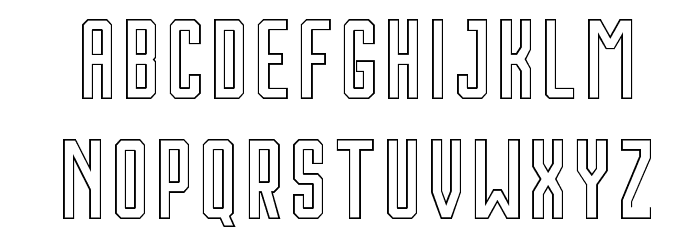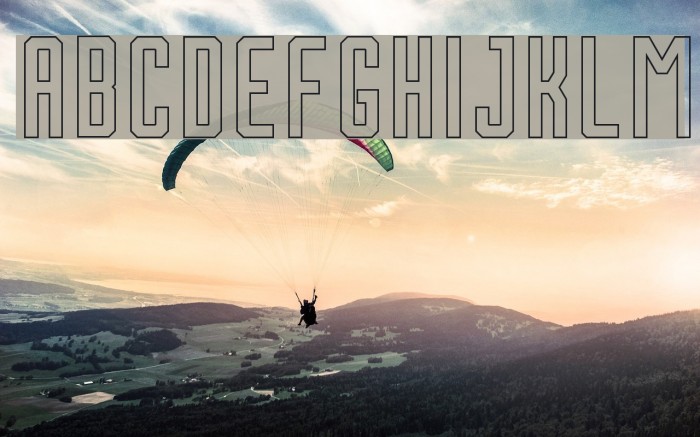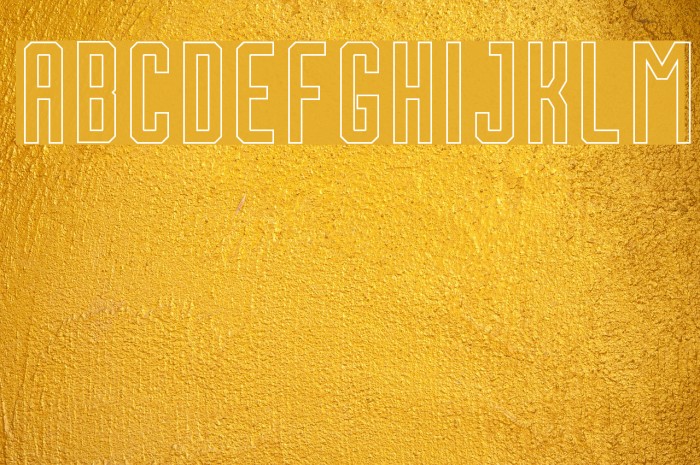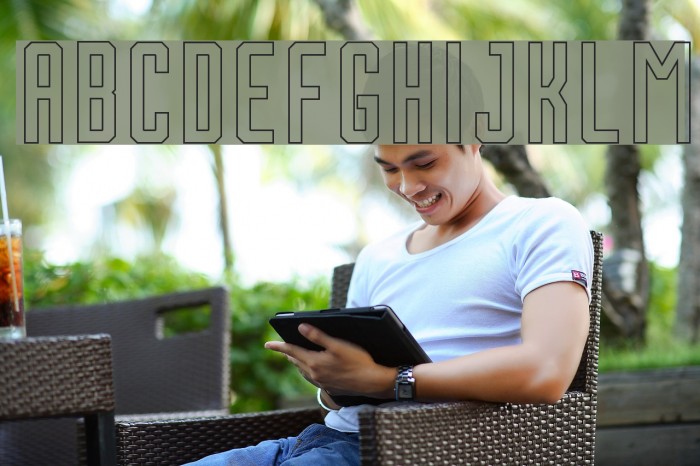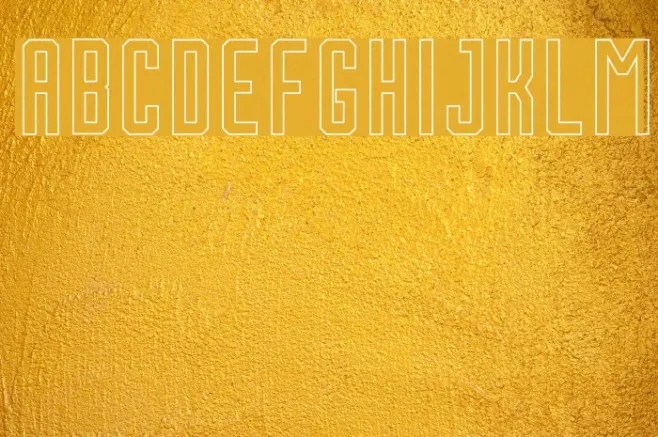
Houston Outline Font
This font features a bold, geometric outline style that emphasizes its strong, angular lines. Each character is crafted with precision, creating a sense of modernity and strength. The uppercase letters are uniform in height, contributing to a cohesive and structured appearance. The outline design allows for creative layering and color play, making it versatile for various design applications. Its clean and sharp edges make it ideal for projects that require a contemporary and impactful look. The font's distinct style is suitable for headlines, posters, and branding materials where a bold statement is desired.
A bold, geometric outline font with strong, angular lines and a modern aesthetic.
- Proposed Projects: Ideal for headlines, posters, branding, and any design needing a bold, modern statement.